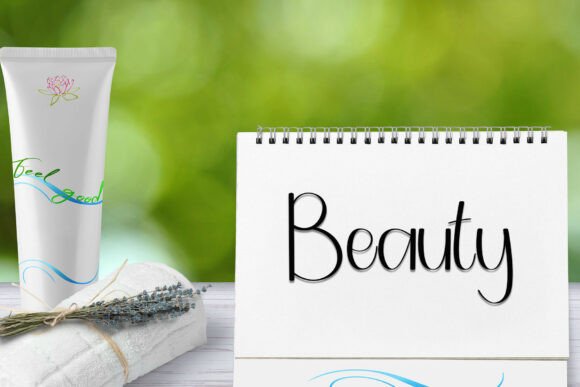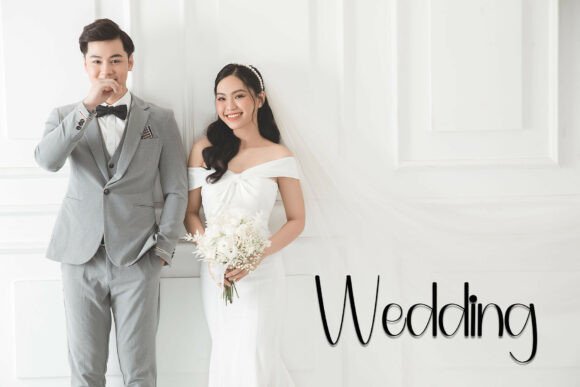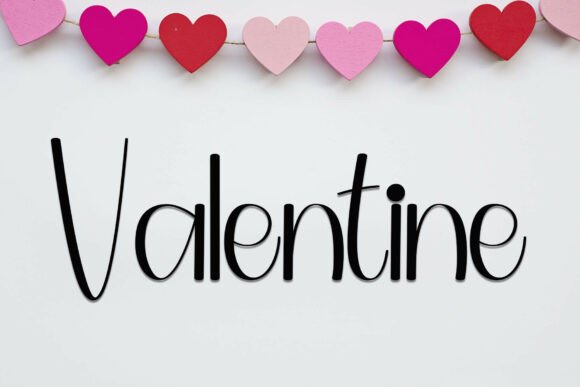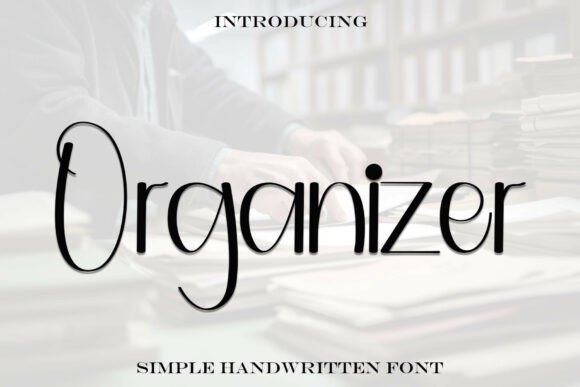
Introduction to Organizer Font
Organizer is a trendy handwritten font with a contemporary atmosphere and impeccable form, inspired by timeless classic calligraphy.
It will add elegance and class to any of your design projects .